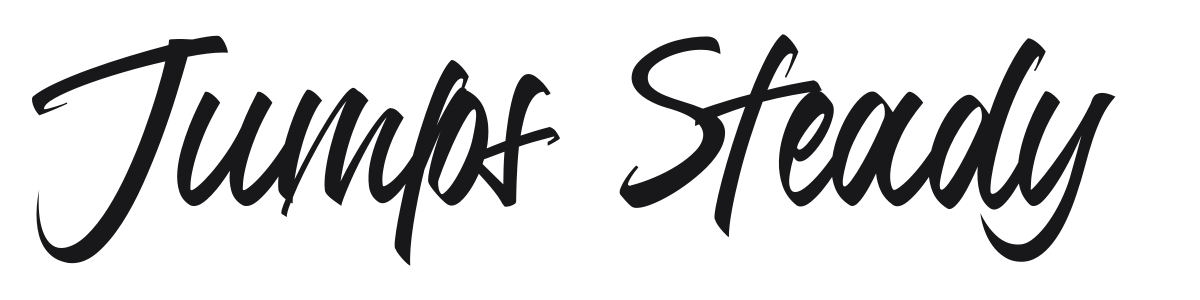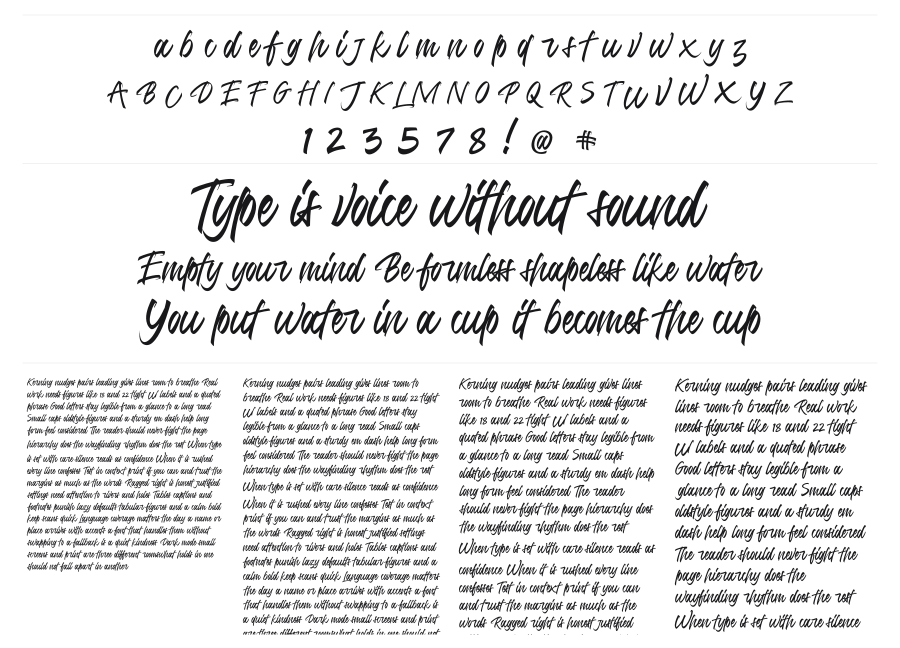
Jumps Steady
Jumps Steady is a bold, ink-textured brush script with the raw energy of hand-lettered street art. Thick strokes split with authentic ink drag, while sharp hairline exits give the design real dynamism. It works at large sizes where its expressiveness can breathe.